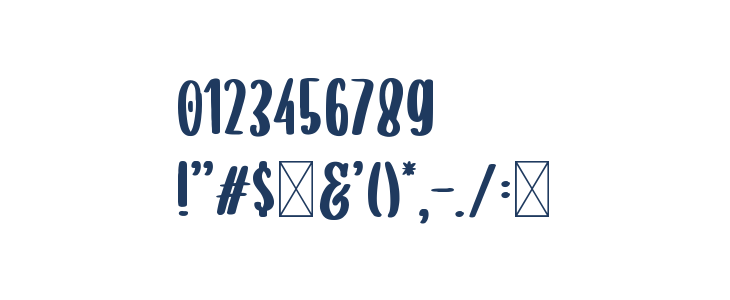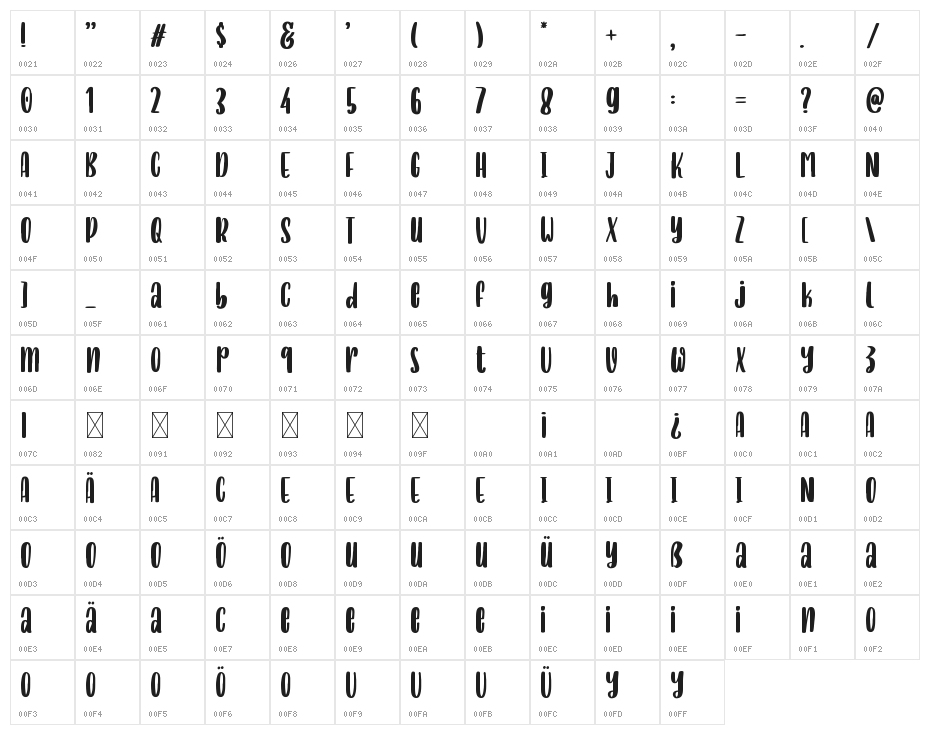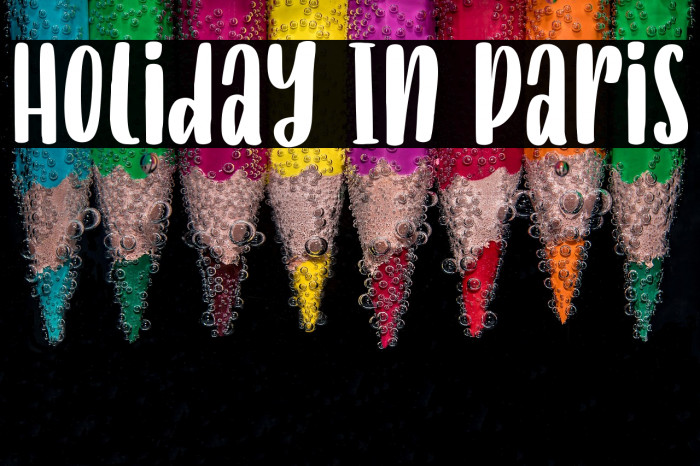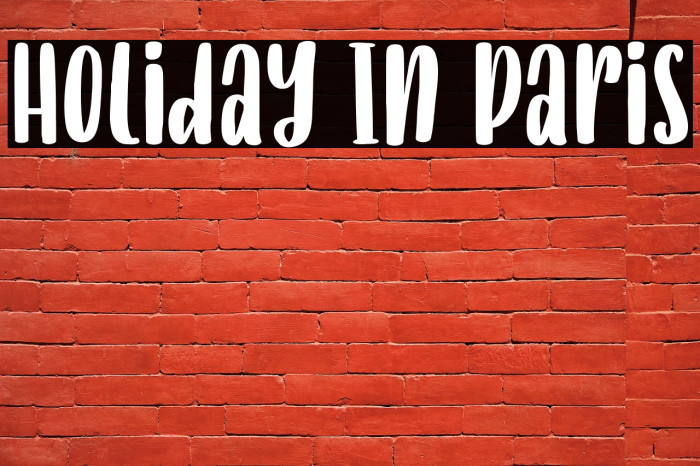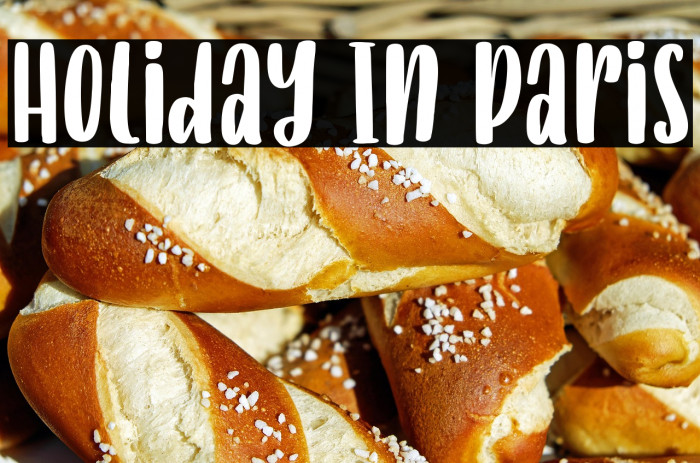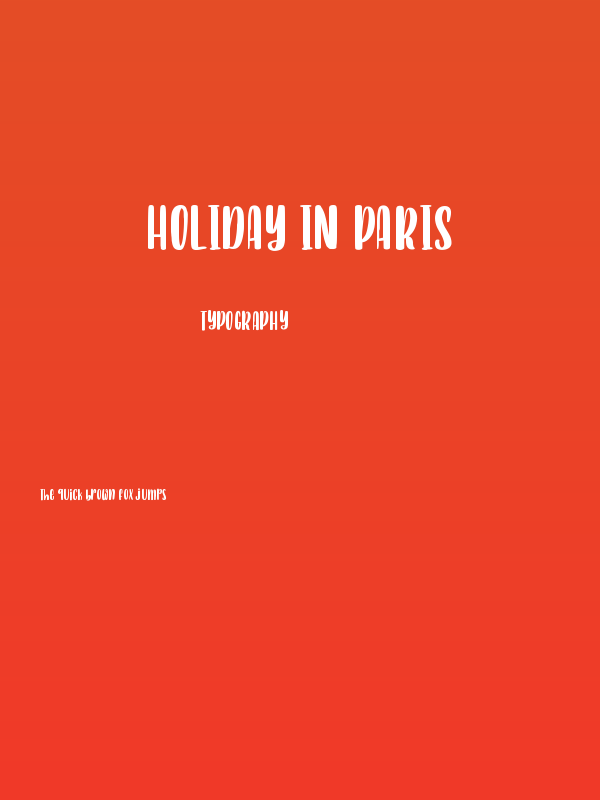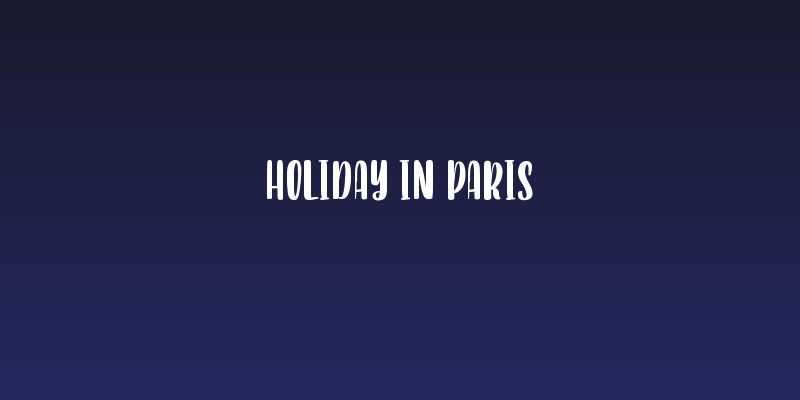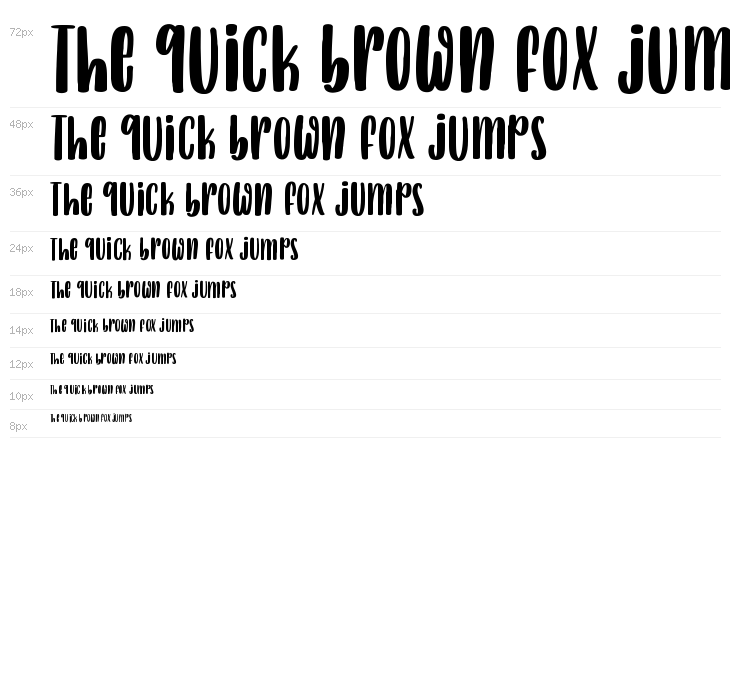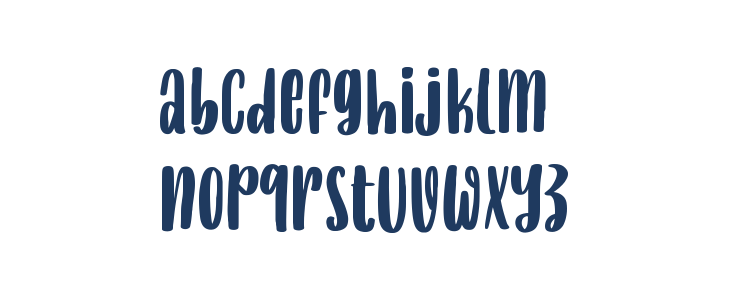
Holiday In Paris Font
Holiday In Paris Description
This font exudes a playful and whimsical charm, characterized by its bold and rounded strokes. The letters are slightly condensed, giving a sense of compactness while maintaining readability. The uppercase letters are tall and commanding, while the lowercase letters have a friendly, approachable feel. The numerals are consistent with the overall style, featuring the same boldness and rounded edges. Special characters are creatively designed, adding to the font's unique personality. This font is perfect for projects that require a fun and lively touch.
Overall StylePlayful
Proposed ProjectsIdeal for children's books, playful branding, event invitations, and creative posters.